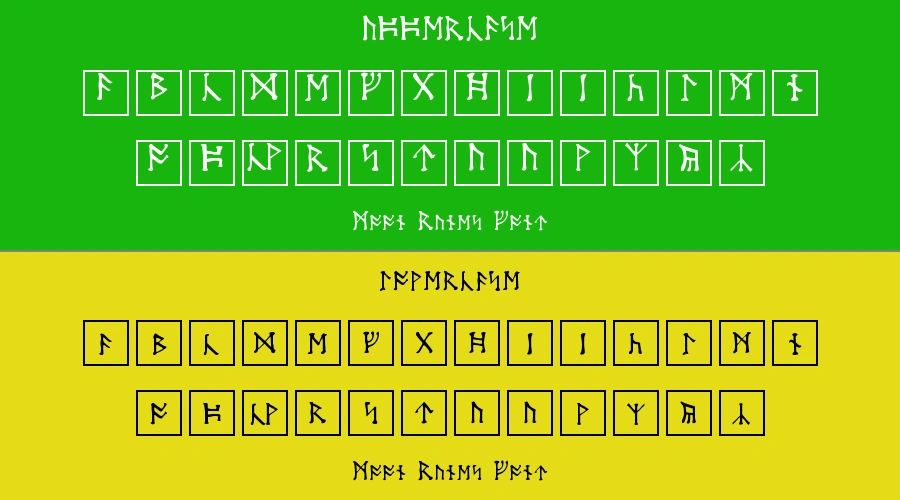
About Moon Runes Font
Moon Runes Font embodies typographic excellence through its masterful combination of tapered strokes and professional finish. Created for advertising headers, this typeface delivers exceptional versatility and artistic merit across all applications. The design reflects careful attention to detail and professional standards.
Advanced capabilities include distinctive bold expressions and versatile case-sensitive forms, giving designers creative control. When used in brand statements, Moon Runes Font exhibits remarkable screen rendering. The harmonious balance between apex design and artistic merit sets this typeface apart.